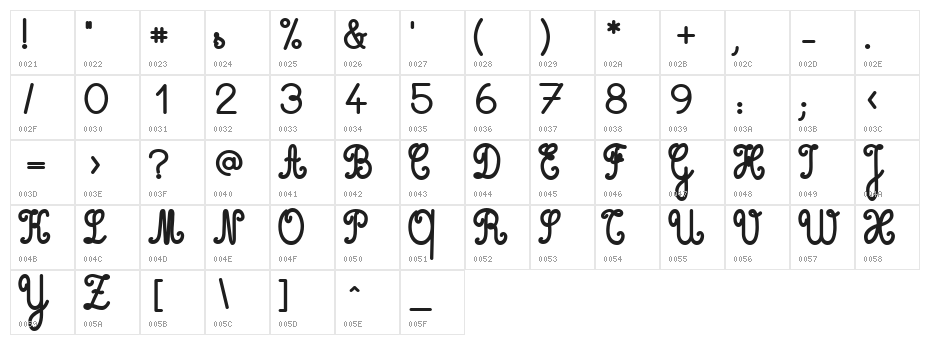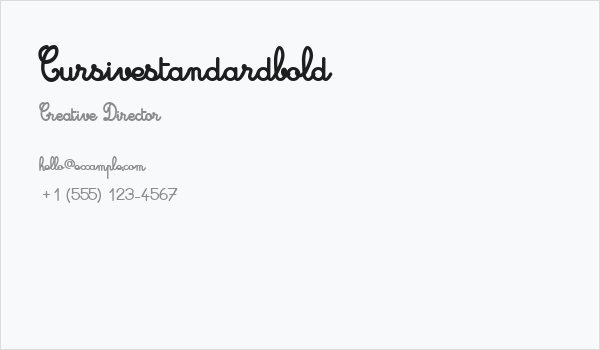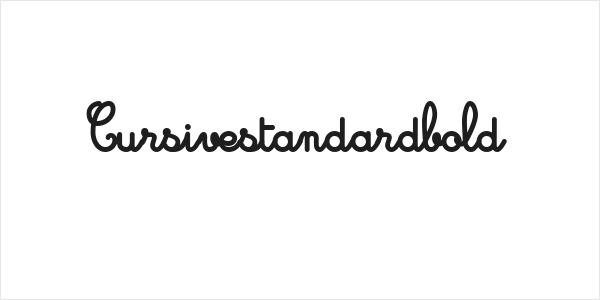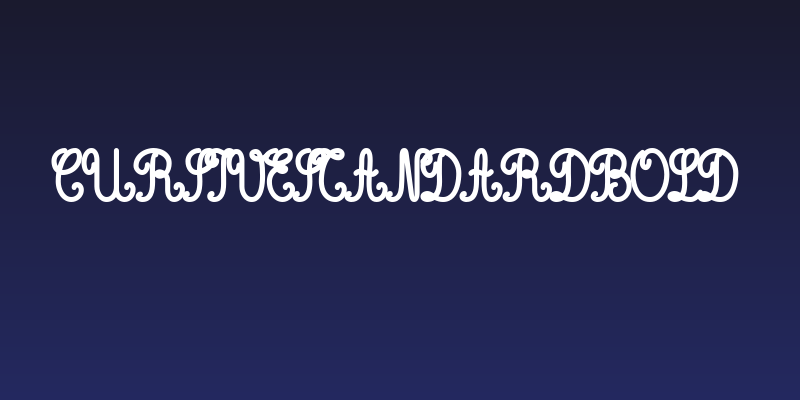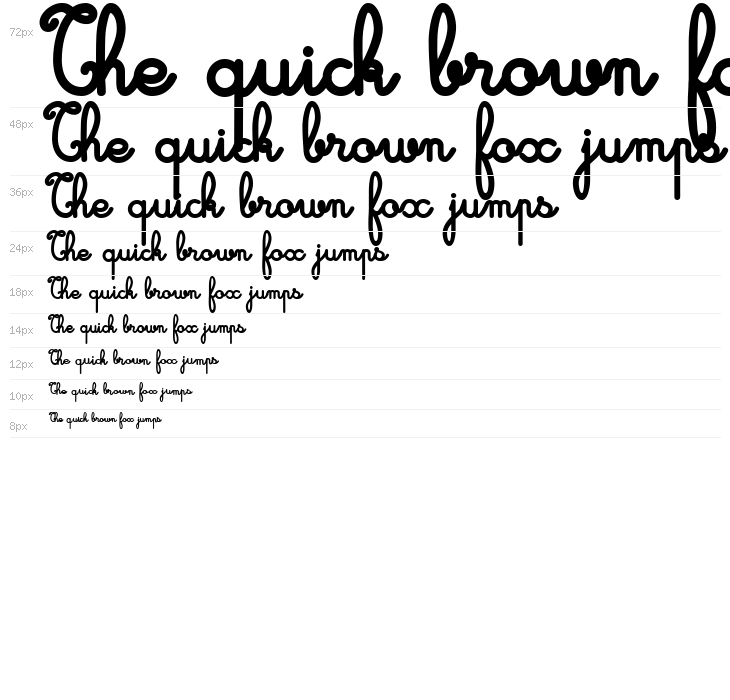
Cursivestandardbold Font
Cursivestandardbold Description
This font features a bold, cursive style with a playful and decorative flair. The uppercase letters are characterized by intricate loops and swirls, giving them a whimsical appearance. The lowercase letters maintain a consistent flow, with smooth, rounded edges that enhance readability while retaining an artistic touch. Numbers and special characters follow the same design principles, ensuring a cohesive look across all elements. The font's boldness and decorative nature make it stand out, ideal for projects that require a touch of elegance and creativity.
| Proposed Projects | Ideal for wedding invitations, greeting cards, branding, and decorative headlines. |